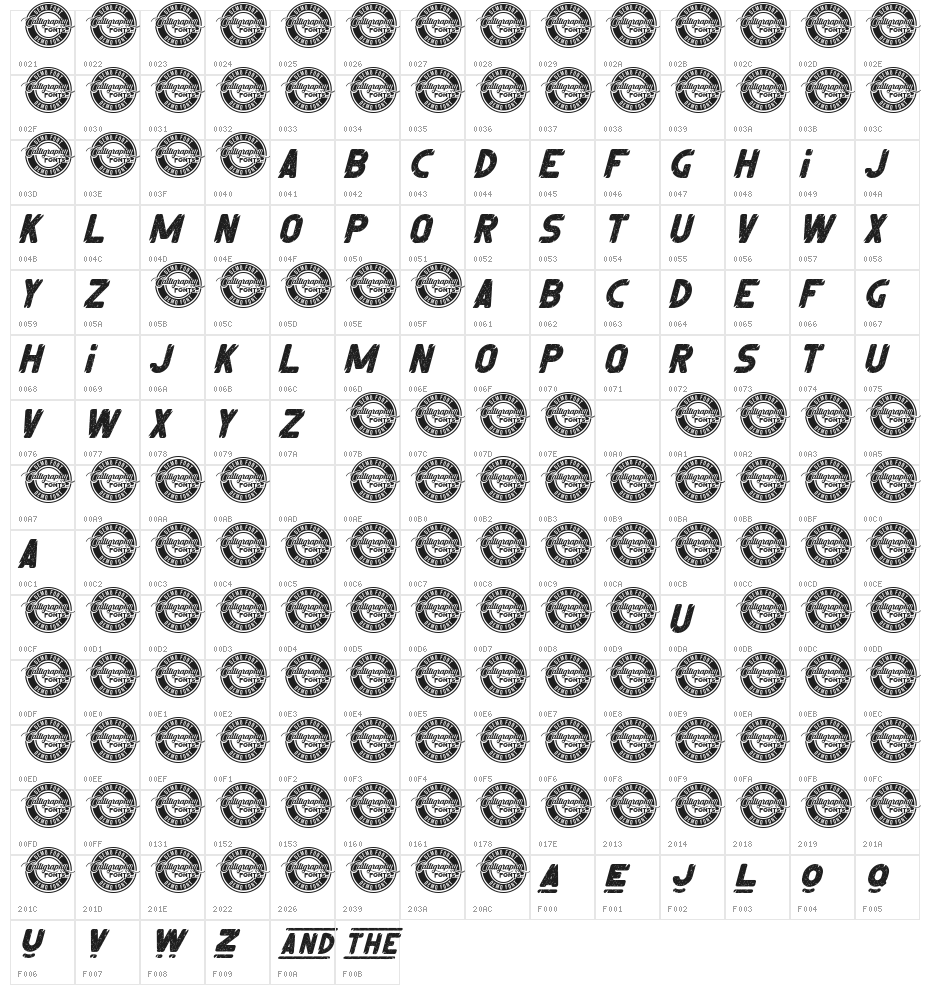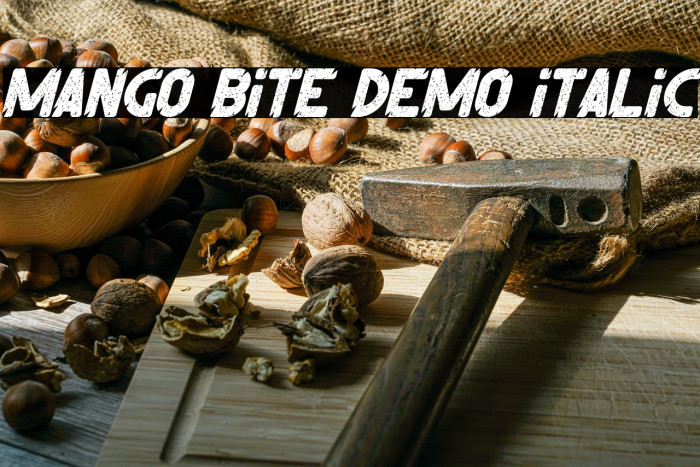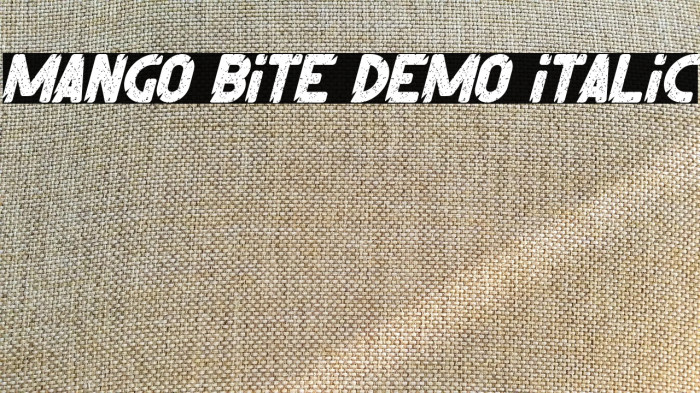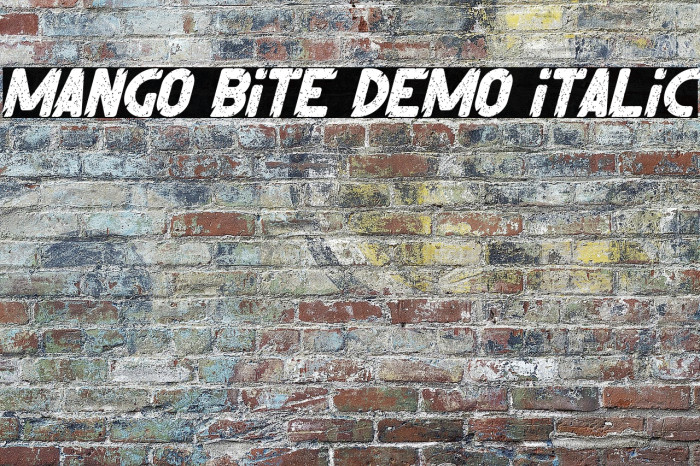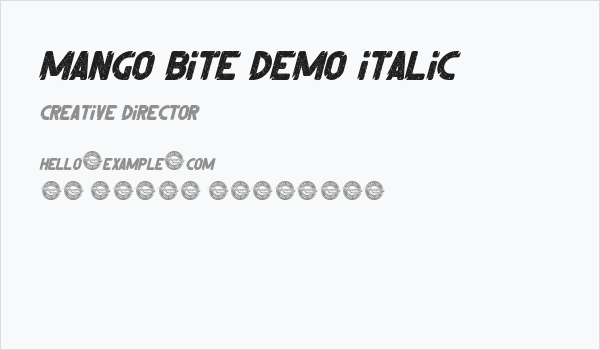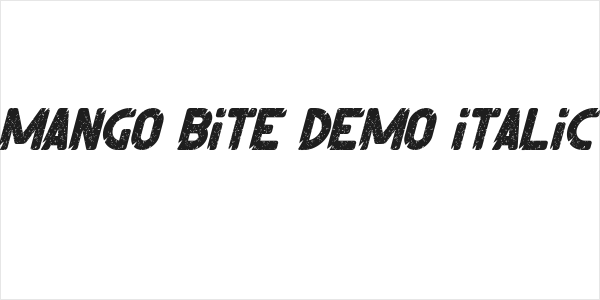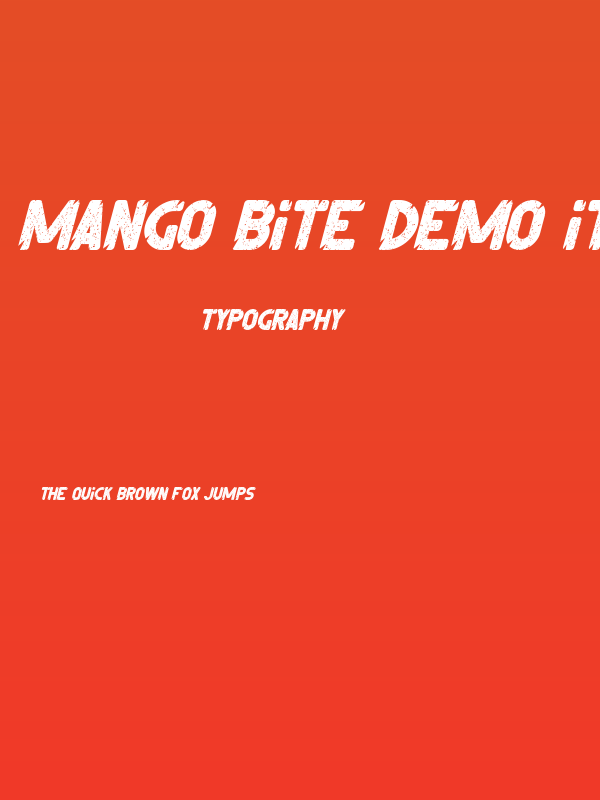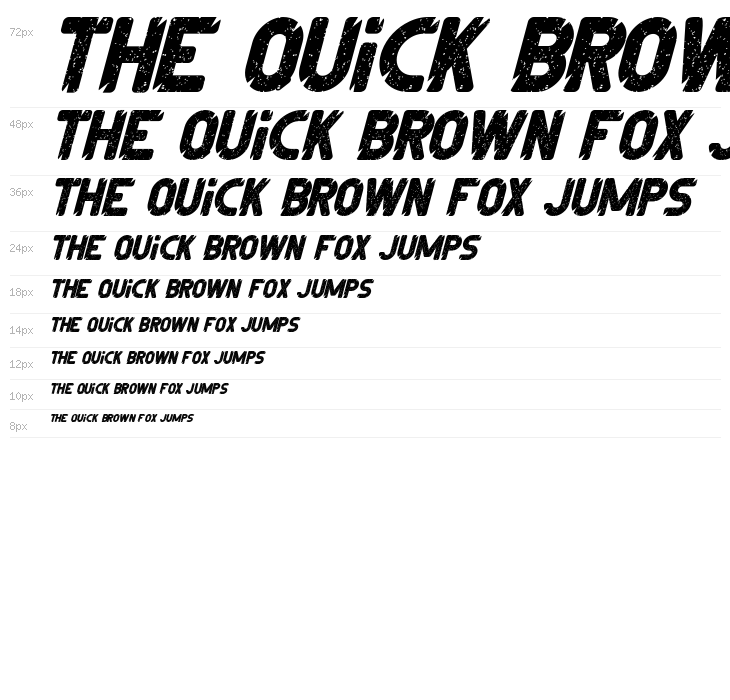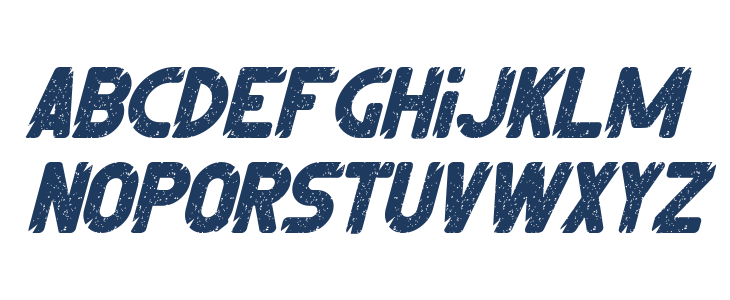
Mango Bite Demo Italic Font
Mango Bite Demo Italic Description
This font features a bold and dynamic style with a distressed texture that gives it a rugged, vintage appearance. The uppercase letters are designed with a slight slant, adding a sense of movement and energy. The texture within each character creates a worn, grunge effect, making it ideal for projects that require a rustic or retro aesthetic. The font's bold weight and italic style enhance its visual impact, making it suitable for attention-grabbing headlines or logos. Its unique character spacing and high contrast between thick and thin strokes contribute to its distinctive look.
| Proposed Projects | Ideal for vintage-themed posters, logos, apparel designs, and branding materials that require a bold, rustic look. |